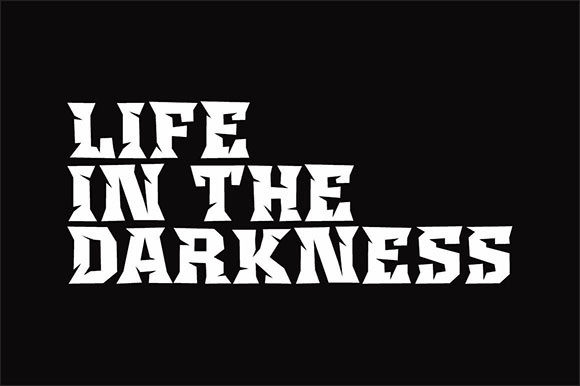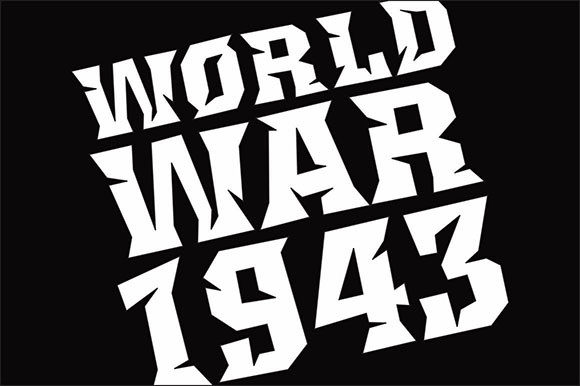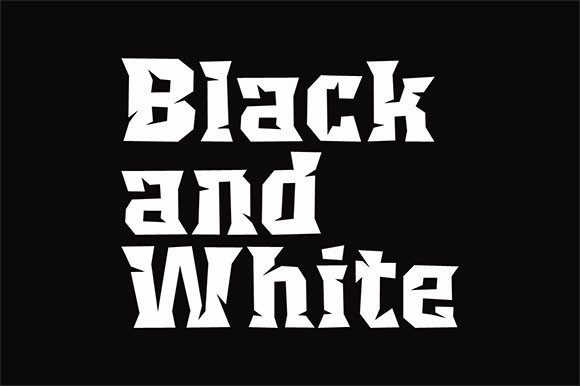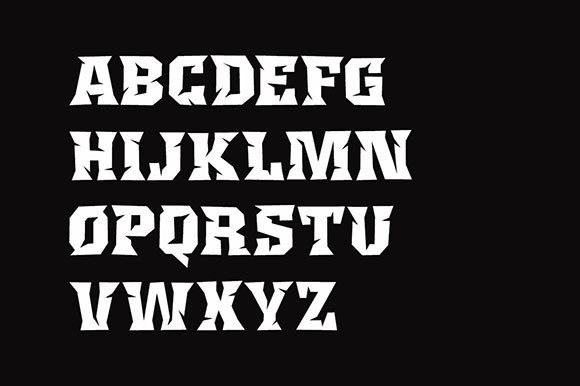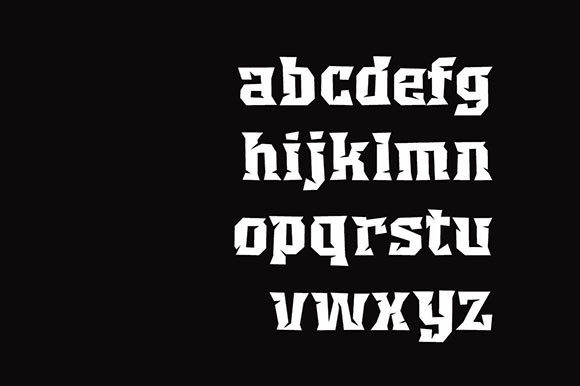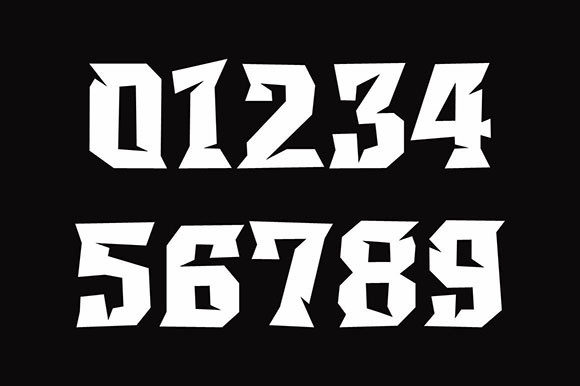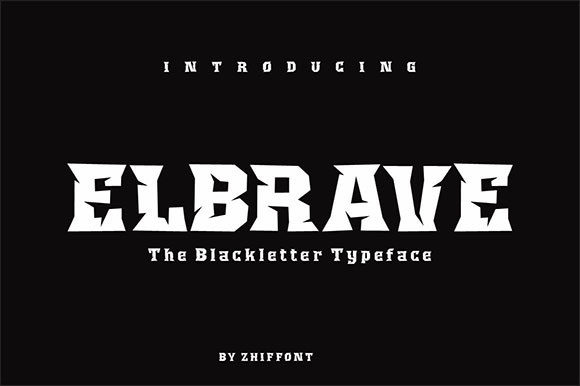
Unleash Your Creativity with Elbrave Font: The Ultimate Display Font for Bold Designs
Are you tired of using the same old fonts for your crafting projects, cards, and branding materials? Look no further! Elbrave Font is here to revolutionize your designs with its bold, thick lettering and aggressive display style. This powerful font is perfect for crafters, designers, and DIY enthusiasts who want to add a touch of edginess to their creations.
What is Elbrave Font?
Elbrave Font is a carefully crafted display font that exudes confidence and energy. Its bold and thick lettering makes it perfect for headlines, titles, and short phrases that need to grab attention. The font’s aggressive style adds a touch of ruggedness, making it ideal for designs that require a strong and daring look.
Elbrave Font is incredibly versatile and can be used for a wide range of crafting ideas, including:
- Cards: Create eye-catching greeting cards, invitations, and postcards that will leave a lasting impression.
- Branding: Use Elbrave Font to create bold and memorable logos, labels, and packaging designs.
- Labels: Design professional-looking labels for your products, files, or folders.
- DIY Projects: Add a touch of personality to your DIY projects, such as scrapbooking, journaling, and crafting.
Why Choose Elbrave Font?
Here are just a few reasons why Elbrave Font stands out from the rest:
- Unique Style: Elbrave Font boasts a distinctive and aggressive style that will set your designs apart from the crowd.
- Ease of Use: The font is easy to read and works well in both digital and print formats.
- High-Quality Design: Elbrave Font is carefully crafted to ensure that it looks great in any size or resolution.
- Customizable: You can experiment with different colors, textures, and effects to make your designs truly unique.
Tips for Using Elbrave Font
To get the most out of Elbrave Font, here are some expert tips:
- Pair with Contrasting Fonts: Combine Elbrave Font with simpler fonts to create visual interest and hierarchy.
- Experiment with Colors: Try out different colors and gradients to add depth and emotion to your designs.
- Use for Headlines and Titles: Elbrave Font is perfect for grabbing attention, so use it for headlines, titles, and short phrases.
| Font Name | Elbrave Font |
| Author | Zhiffont |